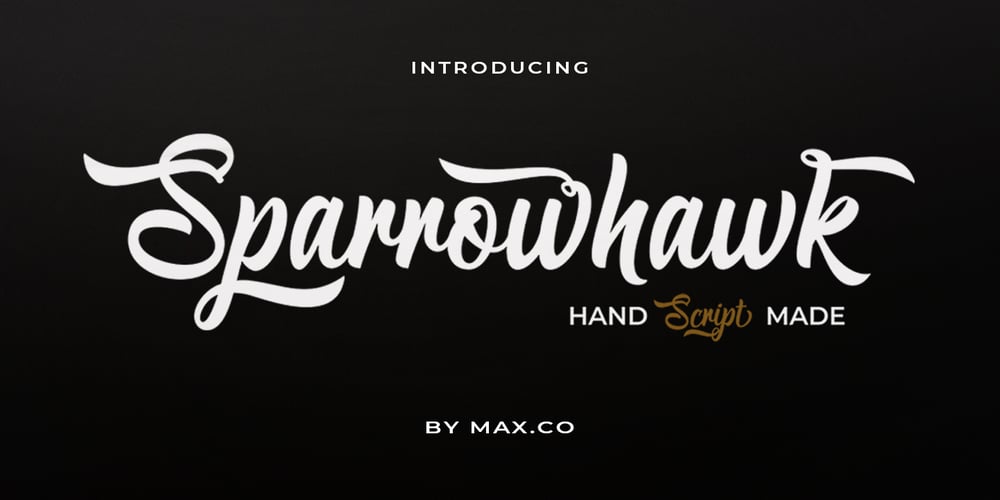
Sparrowhawk Script Font Family was designed by Teuku Rinaldi Novianda and published by Max.co Studio. Sparrowhawk Script contains 1 styles and family package options. Sparrowhawk Script is retro signage font, bold and clean. There are so many variations on each character. Include Opentype stylistic alternates. You are able to create so many different typographical layouts easily and quickly. Make sure you use OpenType savvy program and simply open Glyph Palette to access all of the glyphs. This font is suitable for t-shirts, signage, logos, headlines, branding, packaging, etc. Sparrowhawk Script features 460+ glyphs and alternate characters. including initial and terminal letters, alternates, ornament, swash, ligatures and multiple language support. To enable the OpenType Stylistic alternates, you need a program that supports OpenType features such as Adobe Illustrator CS, Adobe Indesign & CorelDraw X6-X7, Microsoft Word 2010 or later versions. How to access all alternative characters using Adobe Illustrator: http://youtu.be/iptSFA7feQ0 Sparrowhawk Script is coded with PUA Unicode, which allows full access to all the extra characters without having special designing software. Mac users can use Font Book , and Windows users can use Character Map to view and copy any of the extra characters to paste into your favourite text editor/app. How to access all alternative characters, using Windows Character Map with Photoshop: https://www.youtube.com/watch?v=Go9vacoYmBw If you need help or advice, please contact me by e-mail “maximal.fonts@gmail.com”